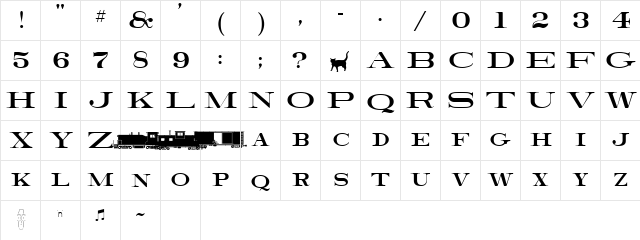
RRRoman Regular
Design Context for RRRoman Typeface
RRRoman offers clean, dependable letterforms without strong stylistic allegiance, making it a practical choice for designers who need flexibility.
Pro Tip: Use RRRoman in both headline and body roles to test its range before committing to a single application.